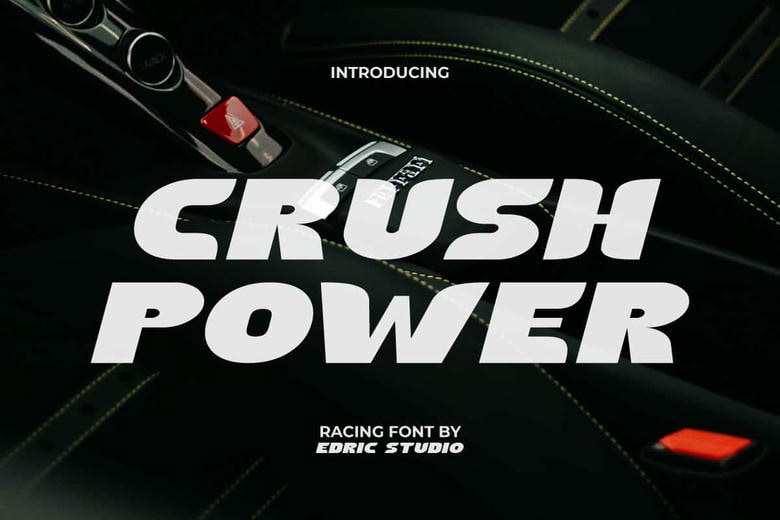
Crush Power Font
Crush Power is a vigorous racing sports font, which is playful and bold represent in the upper case letters and gives quite a firm impression. It will help to make the titles more concise, as well as give them more character and edge. Ideal to be used on text or simply standing on its own as a blog, brochure, business card, header or anything that would need those lovable Calligraphy, head, headlines, labels, logo, poster, print, web and much more!
Crush Power Font is a type of font that is best suited for sports areas, but the design of this particular font type is irresistibly charming and provocative due to the excellent modern approach to the shape. It contains a full alphabet for both the Upper Case Letters as well as Lower case Letters, Numerals or numbers, Symbols and punctuations. They are as follows; bicycle, clothing brand, corporate business, graphic design, sport, vehicle, virtual reality among others use it in your projects in these areas.
Crush Power Display Font